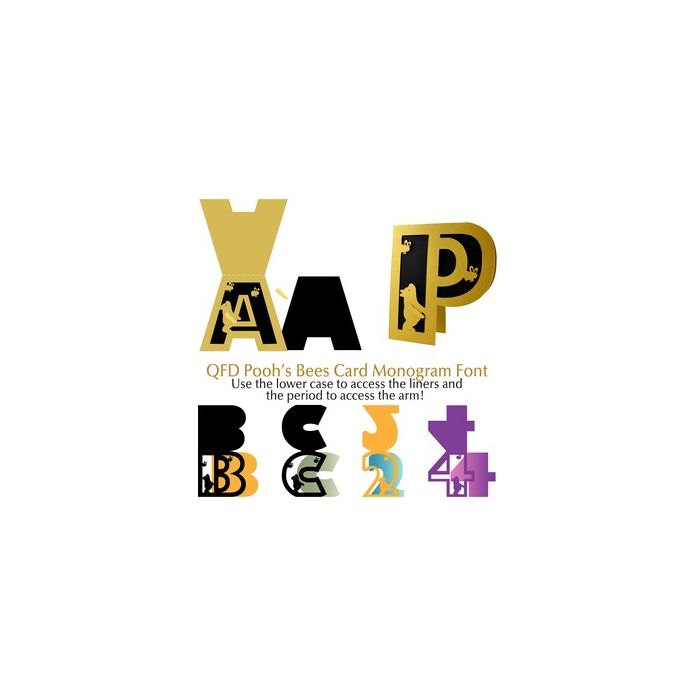
QFD Pooh’s Bees Card Monogram Font
It’s a card!!! Here is a monogram font that cuts into a letter-shaped *card*! Simply cut in the colours of your choice and fold! Use the lower case letters to get the corresponding liner for the letter. (Make sure you resize both at the same time before cutting. If you enlarge to 11” tall, you’ll get a 5.5” card.) Use them on their own or make a cool banner with the letters. Combine them with other Quietfire Card Monogram Fonts, too. If you have any questions, please feel free to contact me through my website!